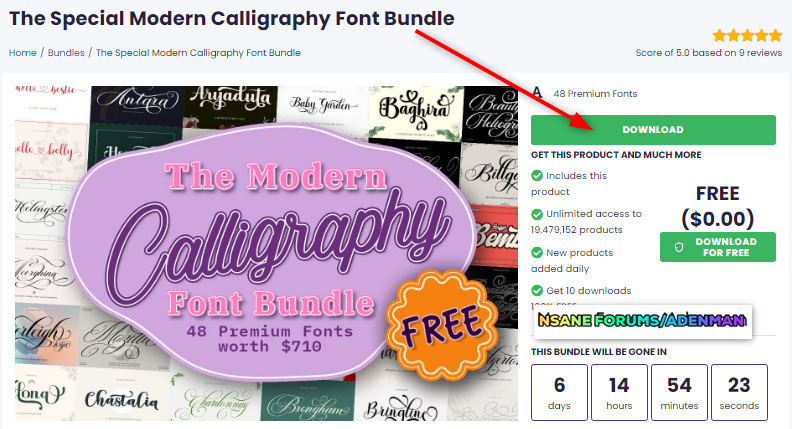
Popular Post Adenman Posted January 2 Popular Post Share Posted January 2 The Special Modern Calligraphy Font Bundle Free! (Worth $710)! This bundle includes: 48 Premium Fonts The Special Modern Calligraphy Font Bundle features a variety of font styles including calligraphy, outline, slant, script, and more. Perfect for greeting cards, branding, quotes, and countless creative projects! Download this incredible bundle for FREE and unlock $710 worth of fonts! Giveaway Link –> https://www.creativefabrica.com/product/the-special-modern-calligraphy-font-bundle/ Download aum, phen0men4, vhick and 4 others 1 6 Link to comment Share on other sites More sharing options...